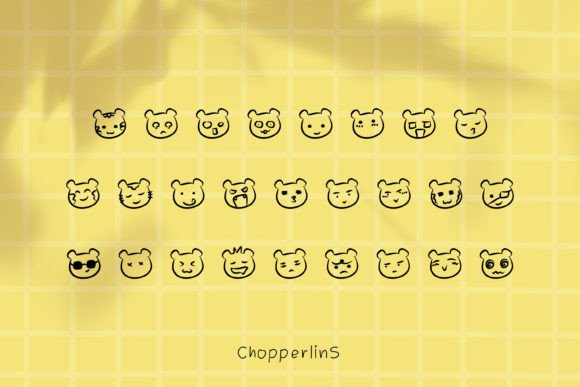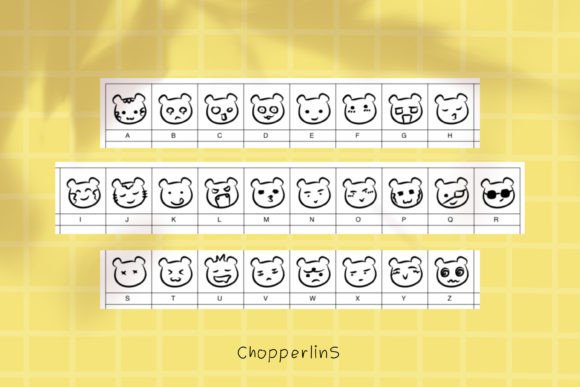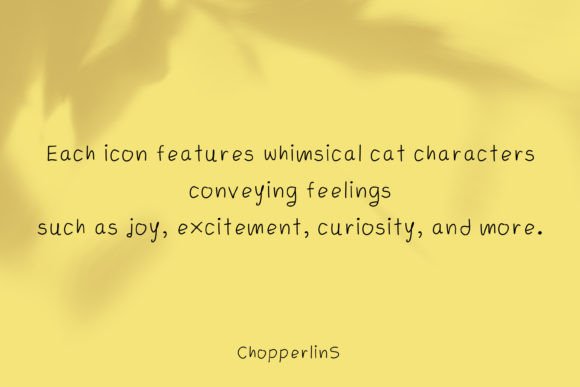
Discover the Delightful World of Catemo Font: Feline-Inspired Emotion Icons
Are you tired of using the same old boring emotion icons in your digital planners and notes? Look no further than Catemo Font, a charming collection of feline-inspired expressions that are sure to bring a smile to your face. In this article, we’ll dive into the world of Catemo emotion icons and explore how they can add a playful touch to your digital planning experience.
What are Catemo Emotion Icons?
Catemo emotion icons are a delightful collection of whimsical cat characters that effortlessly capture a range of emotions with adorable charm. Each icon features a unique feline design, conveying feelings such as joy, excitement, curiosity, and more. The clever blend of cat-like nuances and expressive details adds a playful touch, making them perfect for adding humor and emotional sound reflections to your note-taking or digital planner.
The Charm of Catemo Emotion Icons
So, what makes Catemo emotion icons so special? For starters, the charming expressions of cats create a unique and memorable visual language that’s hard to resist. Whether you’re using them in a digital planner, journal, or social media post, Catemo icons are sure to grab attention and add a touch of personality to your content. Plus, the adorable designs are sure to appeal to cat lovers of all ages!
Using Catemo Emotion Icons with Digital Planners
One of the best things about Catemo emotion icons is how easily they can be integrated into digital planners. Whether you’re using a popular planner like GoodNotes or creating your own custom layout, Catemo icons can add a fun and playful touch to your notes and reflections. Imagine using a curious cat icon to mark a question or a happy cat icon to highlight a achievement – it’s a great way to add visual interest and personality to your planning pages.
Catemo emotion icons aren’t just fun and cute – they’re also a valuable resource for designers and crafters. Whether you’re creating digital planners, journals, or other types of content, Catemo icons can add a unique and engaging touch to your work. Plus, the icons can be easily customized to fit your brand or design style, making them a versatile addition to your toolkit.
How to Use Catemo Emotion Icons in Your Digital Planning
So, how can you start using Catemo emotion icons in your digital planning? Here are a few ideas to get you started:
- Use Catemo icons to mark important events or deadlines in your planner
- Add Catemo icons to your journal pages to illustrate your thoughts and feelings
- Use Catemo icons to create custom headers or footers for your planner pages
- Incorporate Catemo icons into your social media posts to add a playful touch
Tips for Getting the Most Out of Catemo Emotion Icons
To get the most out of Catemo emotion icons, here are a few tips to keep in mind:
- Experiment with different icon combinations to create unique and interesting visual effects
- Use Catemo icons consistently throughout your planner or journal to create a cohesive look
- Don’t be afraid to get creative and use Catemo icons in unexpected ways – after all, that’s what makes them so fun!
In conclusion, Catemo emotion icons are a delightful and versatile resource that’s perfect for designers, crafters, and anyone looking to add a playful touch to their digital planning experience. With their charming feline designs and expressive details, Catemo icons are sure to bring a smile to your face and add a unique touch to your content. So why not give them a try and see how they can enhance your digital planning experience?